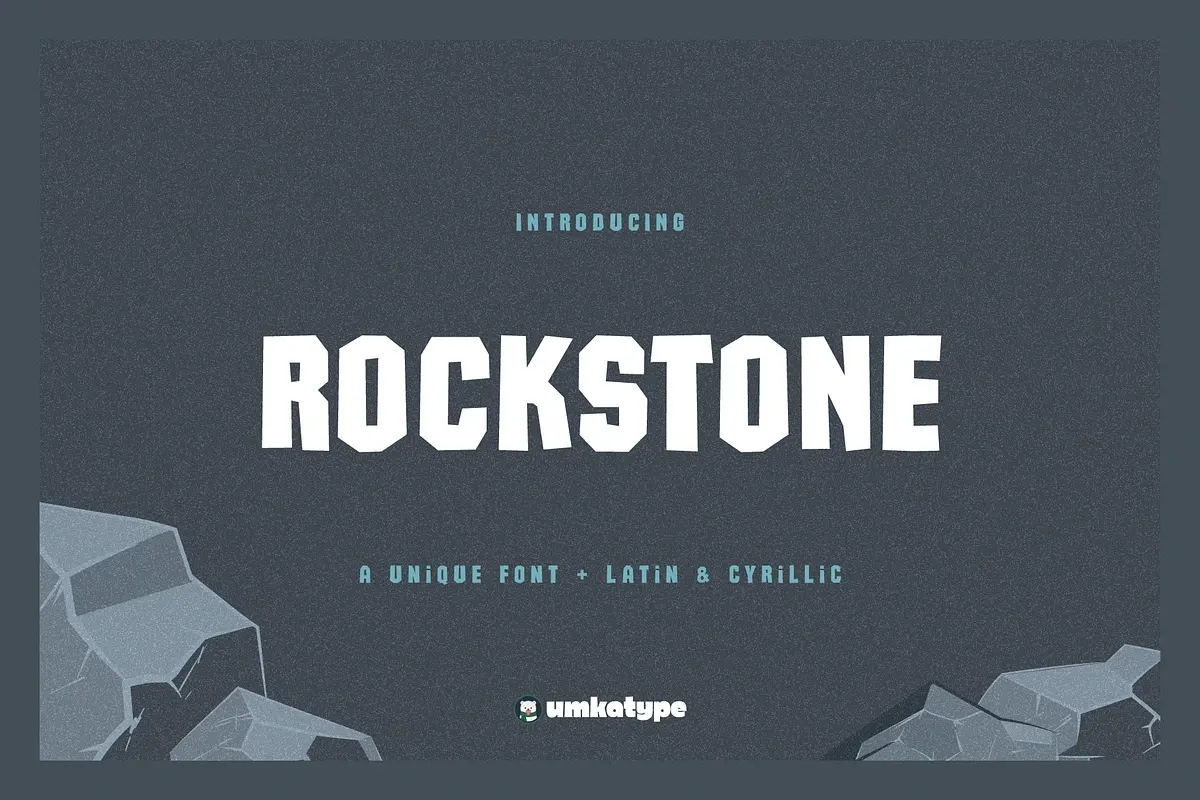
Rockstone Display Font Free Download
Rockstone Display Font Free Download is a bold and strong display typeface with sharp edges and a rugged feel. Perfect for creating impactful headlines, logos, posters, branding, and anything that requires a strong, distinctive look. The font combines modern and vintage influences, giving it a versatile edge suitable for a wide range of creative projects.
The solid, powerful letterforms make Rockstone ideal for projects that demand attention and assertiveness, whether you're working on a modern brand identity or a retro-inspired design.